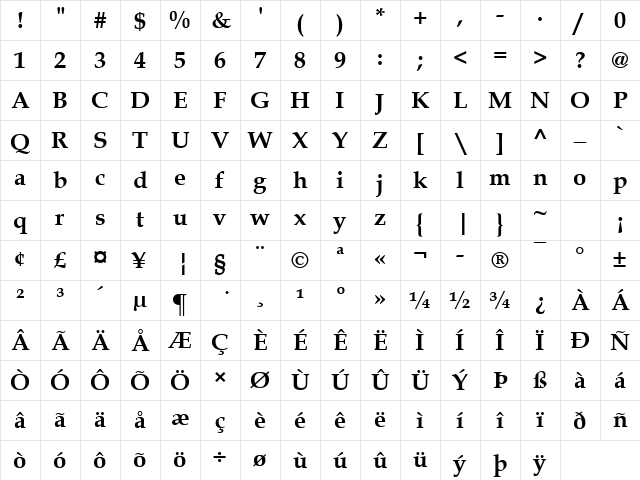
Complete Book Antiqua Bold glyph index. Displaying only characters natively supported by Book Antiqua Bold font.
Book Antiqua is a composed and adaptable typeface that performs quietly and consistently across a wide range of design contexts. Its bold stroke weight gives it real presence on the page.
Who designed the Book Antiqua Bold font?